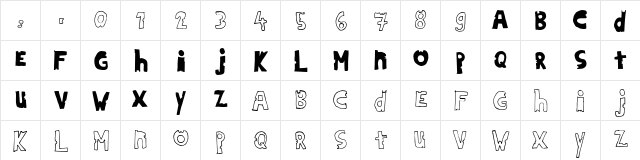
HildiniaDonut Regular
Regular · J O E B O B graphics 2006 J O E B O B graphics & Hilde Rikken ·
DesignerJ O E B O B graphics & Hilde Rikken
Design Context for HildiniaDonut Typeface
HildiniaDonut is a composed and adaptable typeface that performs quietly and consistently across a wide range of design contexts.